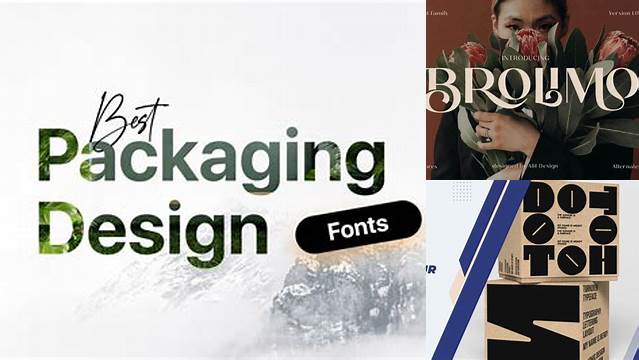
Best Fonts For Packaging Design: A Comprehensive Guide
Choosing the best fonts for packaging design is crucial for attracting customers and conveying your brand's message. The right typography can make your product stand out on the shelf, communicate essential information, and create a lasting impression. In this article, we'll explore some top font choices and provide tips on how to select the perfect typeface for your packaging needs.
Why Font Choice Matters in Packaging
Font choice is paramount in packaging because it directly impacts how consumers perceive your product. Think about it: the fonts you use are often the first thing people notice. A well-chosen font can communicate trustworthiness, luxury, playfulness, or any other emotion you want to evoke. Conversely, a poorly chosen font can make your product look cheap, confusing, or unappealing. So, guys, getting this right can seriously affect your sales!
- Brand Identity: Fonts are a key component of your brand's visual identity. Consistent use of specific fonts across all your packaging helps customers recognize your products instantly. For example, think of the elegant, sophisticated fonts used by high-end cosmetic brands versus the bold, playful fonts used for children's products. The font should align with your brand's personality and values. Is your brand modern and minimalist? Or is it classic and traditional? The font should reflect this. Using consistent typography helps build brand recognition and loyalty. Imagine if Coca-Cola suddenly changed its iconic script font – it would be brand sacrilege!
- Readability: While aesthetics are important, readability is even more critical. Your packaging needs to communicate essential information clearly, such as product name, ingredients, and usage instructions. Choose fonts that are easy to read at a glance, even in small sizes. Avoid overly decorative or complex fonts that can strain the eyes. Ensure sufficient contrast between the text and the background. A general rule of thumb is to test your packaging design with different age groups to ensure readability for everyone. After all, what’s the point of having beautiful packaging if nobody can read what’s inside?
- Emotional Impact: Fonts have the power to evoke emotions and create associations. A serif font might convey tradition and reliability, while a sans-serif font can suggest modernity and simplicity. Consider the emotional response you want to elicit from your target audience. Do you want them to feel excited, comforted, or intrigued? For instance, a handwritten font might add a personal touch to a craft product, while a bold, geometric font can convey strength and innovation. Think about the overall feeling you want your packaging to communicate and choose fonts that align with that vision.
- Shelf Appeal: In a crowded retail environment, your packaging needs to stand out from the competition. The right font can help your product grab attention and entice customers to take a closer look. Consider using unique or eye-catching fonts that reflect your brand's personality. However, remember to balance visual appeal with readability. The goal is to attract attention without sacrificing clarity. Experiment with different font combinations and layouts to find a design that maximizes shelf appeal. Don't be afraid to be bold and try something different. Just make sure it's still on-brand and easy to read.
Top Font Choices for Packaging Design
Selecting the right fonts can elevate your packaging and attract customers. Here are some top font choices, categorized for different design styles, to help you make an informed decision:
Serif fonts, with their classic and elegant appearance, are a solid choice for packaging that needs a touch of tradition and sophistication. These fonts are characterized by the small decorative strokes (serifs) at the end of letterforms, which enhance readability and give a sense of formality. Serif fonts are particularly effective for brands aiming to convey trustworthiness, heritage, and quality. When choosing a serif font, consider the specific mood you want to create – some serifs are more modern, while others are more traditional.
- Garamond: Garamond is a timeless serif font known for its elegance and readability. It works well for high-end products, such as cosmetics, perfumes, and luxury food items. Its refined letterforms exude sophistication, making it a perfect choice for brands aiming for a premium feel. Garamond's versatility also makes it suitable for both body text and headlines, ensuring a cohesive and polished look. This font has been used for centuries, proving its enduring appeal and ability to convey a sense of history and tradition. Think of brands like Rolex or Chanel – Garamond would fit right in!
- Times New Roman: While sometimes considered a default choice, Times New Roman can be effective when used intentionally. Its familiarity and readability make it a safe option for conveying essential information on packaging. It's particularly useful for products where clarity and simplicity are paramount. For example, pharmaceutical packaging or legal documents often use Times New Roman for its straightforward and no-nonsense appearance. However, to avoid a generic look, pair it with a more distinctive font for headlines or branding elements. Use it wisely, and Times New Roman can still hold its own in the world of packaging design.
- Playfair Display: Playfair Display is a stylish serif font that adds a touch of elegance and modernity to packaging. Its high contrast and delicate letterforms make it ideal for luxury products, such as skincare, jewelry, and high-end confectionery. Playfair Display's unique personality helps it stand out, making it a great choice for brands looking to make a statement. It works particularly well for headlines and titles, adding a touch of sophistication to your packaging design. If you want to convey a sense of luxury and refinement, Playfair Display is an excellent option.
Sans-serif fonts are known for their clean, modern lines, making them ideal for packaging that aims to convey simplicity, innovation, and a contemporary feel. Unlike serif fonts, sans-serif fonts lack the small decorative strokes at the end of letterforms, resulting in a more streamlined and minimalist appearance. This makes them particularly effective for brands targeting a younger audience or those in tech, health, and wellness industries. The key is to choose a sans-serif font that aligns with your brand's personality and ensures readability across different packaging sizes and materials.
- Helvetica: Helvetica is a classic sans-serif font renowned for its neutrality and clarity. Its clean lines and simple geometry make it highly versatile and suitable for a wide range of products. From consumer electronics to food packaging, Helvetica's legibility ensures that your message is easily understood. Its timeless appeal makes it a safe and reliable choice for brands that value clarity and simplicity. However, its ubiquity means it's important to use it thoughtfully to avoid a generic look. Consider pairing it with a more distinctive font or using unique layouts to make your packaging stand out.
- Futura: Futura is a geometric sans-serif font that exudes modernity and efficiency. Its clean, sharp lines make it ideal for brands in the technology, automotive, and design industries. Futura's minimalist aesthetic conveys a sense of innovation and forward-thinking. It works well for both headlines and body text, providing a cohesive and contemporary look. Its strong geometric shapes make it particularly eye-catching, ensuring your packaging stands out on the shelf. If you're aiming for a sleek and modern appearance, Futura is an excellent choice.
- Open Sans: Open Sans is a humanist sans-serif font designed for readability on screens, making it a great choice for packaging that includes digital elements, such as QR codes or online promotions. Its open letterforms and neutral appearance ensure that your message is easily understood, even in small sizes. Open Sans is versatile and can be used for a wide range of products, from food to personal care items. Its friendly and approachable design makes it a great choice for brands aiming to connect with their audience on a personal level. If you need a font that works well both online and offline, Open Sans is a reliable option.
Script and Display Fonts
Script and display fonts add personality and uniqueness to packaging, making them perfect for brands that want to stand out and create a memorable impression. Script fonts mimic handwriting, conveying a sense of craftsmanship, personalization, and artistry. Display fonts, on the other hand, are designed to be eye-catching and attention-grabbing, often featuring unique shapes, bold strokes, and decorative elements. These fonts are best used sparingly, for headlines, logos, or short bursts of text, to add a touch of flair and character to your packaging.
- Brush Script: Brush Script is a casual, flowing script font that adds a personal and informal touch to packaging. Its handwritten style makes it ideal for artisanal products, such as handmade soaps, craft beverages, and gourmet foods. Brush Script conveys a sense of authenticity and care, making it a great choice for brands that value craftsmanship and attention to detail. However, it's important to use it sparingly, as its informality may not be suitable for all products. When used effectively, Brush Script can add a unique and memorable touch to your packaging.
- Lobster: Lobster is a bold and distinctive script font that adds a vintage, retro feel to packaging. Its condensed letterforms and unique swashes make it eye-catching and memorable. Lobster is particularly effective for brands that want to evoke a sense of nostalgia or classic Americana. It works well for food packaging, beverage labels, and vintage-inspired products. However, its distinct personality means it's important to use it judiciously to avoid overpowering the overall design. When used correctly, Lobster can add a touch of retro charm to your packaging.
- Bebas Neue: Bebas Neue is a clean and modern sans-serif display font that adds a touch of sophistication to packaging. Its tall, condensed letterforms make it ideal for headlines and titles, ensuring your message stands out. Bebas Neue is versatile and can be used for a wide range of products, from fashion to technology. Its minimalist aesthetic conveys a sense of style and innovation. If you're looking for a font that's both modern and eye-catching, Bebas Neue is an excellent choice.
Choosing the right font for your packaging involves several considerations. Here are some practical tips to help you make the best decision:
- Consider Your Brand: Your font should align with your brand's personality and values. Are you a luxury brand, a playful brand, or a serious brand? Choose a font that reflects your brand's identity.
- Know Your Audience: Think about who you are trying to reach. Different fonts appeal to different demographics. A font that appeals to teenagers may not appeal to older adults.
- Ensure Readability: Make sure the font is easy to read, even in small sizes. Test the font on different packaging materials to ensure it remains legible.
- Limit Font Choices: Stick to a maximum of two or three fonts on your packaging. Too many fonts can make your design look cluttered and confusing.
- Test Font Pairings: Experiment with different font combinations to find pairings that work well together. A classic pairing is a serif font for headlines and a sans-serif font for body text.
- Check Licensing: Make sure you have the appropriate license to use the font for commercial purposes. Some fonts are free for personal use but require a license for commercial use.
- Consider Cultural Context: Be aware that fonts can have different connotations in different cultures. Do your research to ensure your font choice is appropriate for your target market.
Selecting the best fonts for your packaging design is an investment that can significantly impact your product's success. By understanding the different types of fonts and considering your brand identity, target audience, and readability, you can choose typography that enhances your packaging and attracts customers. So go ahead, guys, experiment with different fonts and find the perfect match for your brand!